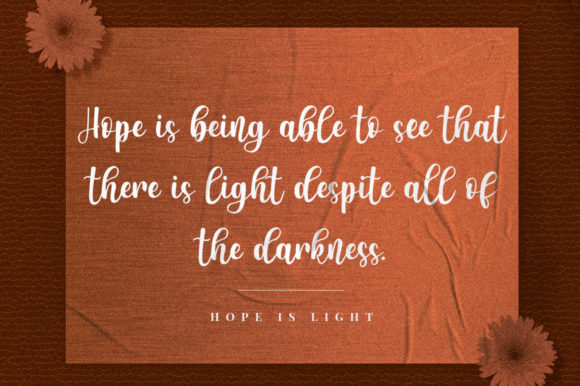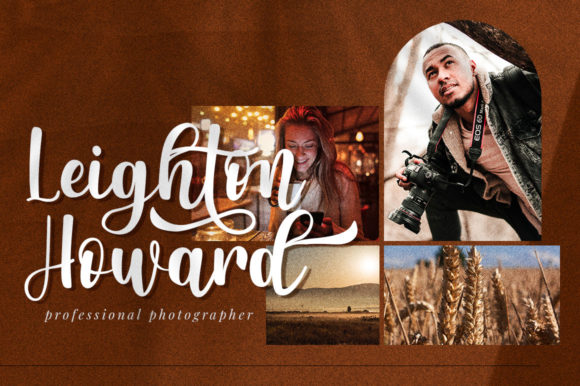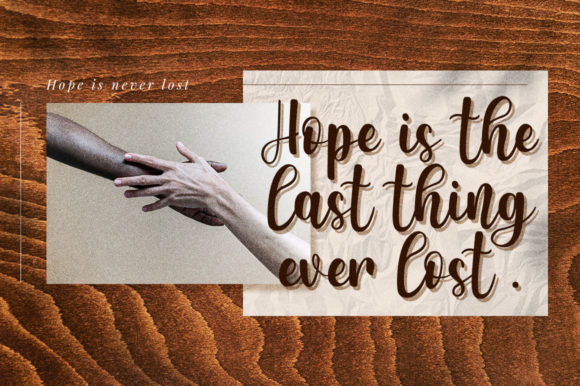
Introduction to Monatessa Font
Monatessa is a sweet and delicate handwritten font.
Dainty and joyful, this font will be ideal for writing wedding invitations, cards or any other design that may need a romantic, personalized touch This font is PUA encoded which means you can access all of the glyphs and swashes with ease.
Key Features of Monatessa Font